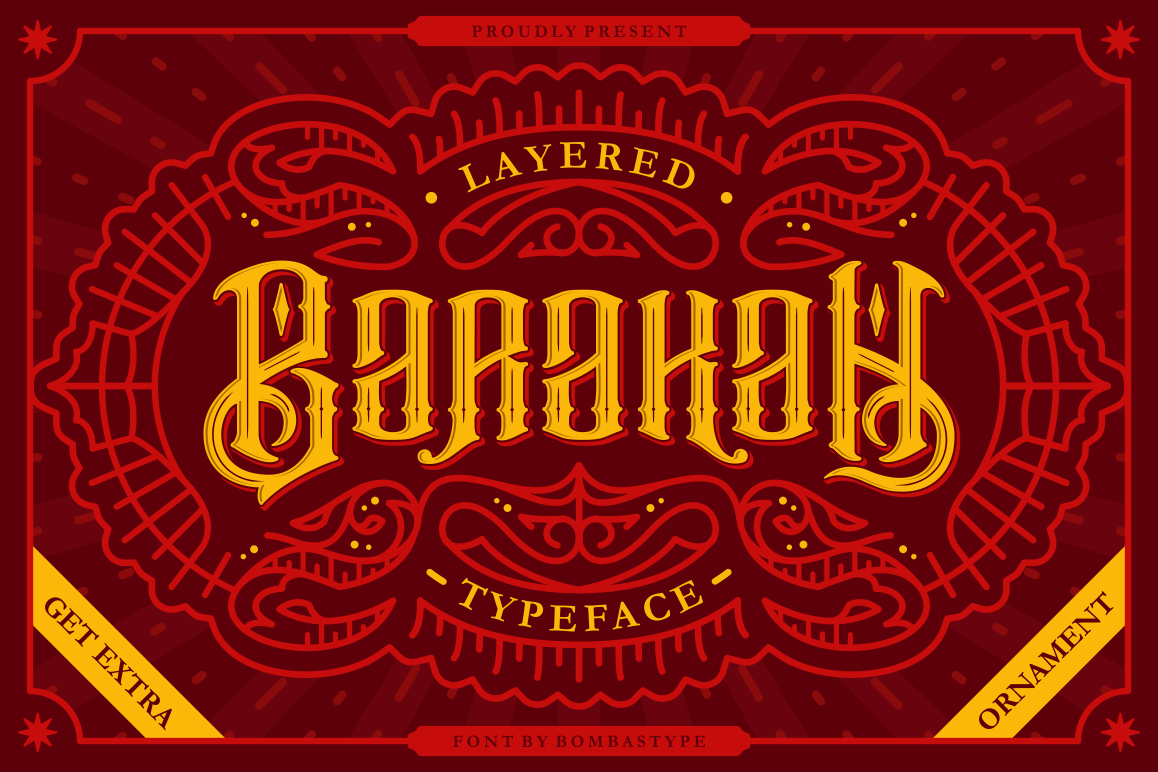
Barakah Typeface Extras
Barakah Inline
Barakah Regular
Barakah Drop Shadow
Barakah Inner Shadow
Hi Everyone !.. Let us Introduce our very first font ever made. It's called Barakah Typeface , a multi-layered victorian font ( Regular - Inline - Inner Shadow - Drop Shadow ). This font inspired by Vintage Design ( especially from Tattoo Label and Vintage Signage ) .Barakah Typeface is perfect for Logotype , Poster, Flyer, Label, or any Display design purpose. Because your creativity is limitless.
• Standard Character ( Uppercase, Lowercase, Numeric, Currency, Punctuation )
• Alternates Character
• Extra Ornaments